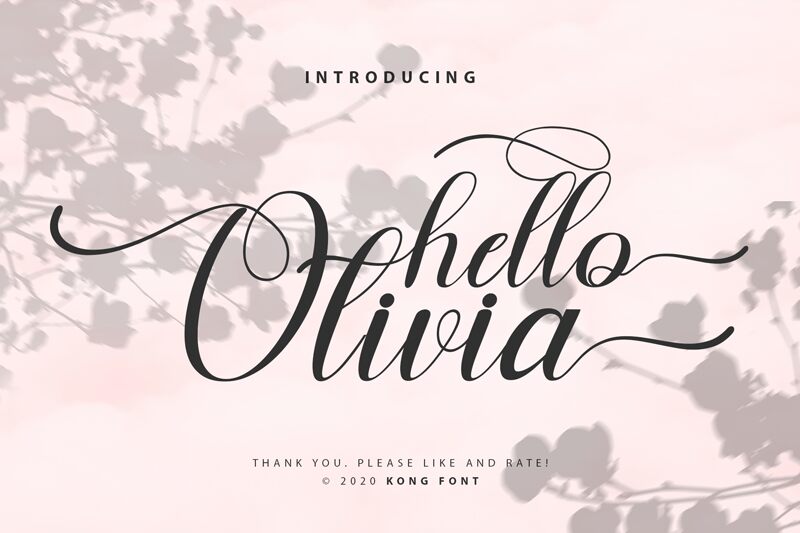
Hello Olivia font family by Kong Font brings an elegant and artistic flair to your design projects. This free-flowing calligraphy font, available in 4 styles, effectively replicates the delicate and rich visual experience of classic scripts. Graceful and sophisticated, Hello Olivia is inviting and ornate with a delicate touch that improves all visual content it is part of.
Hello Olivia is one of the most favored fonts in contemporary applications such as wedding invitations and branding. It also looks harmonious on social media posts, packaging, business cards, ads, headings, and logos, among other similar uses.